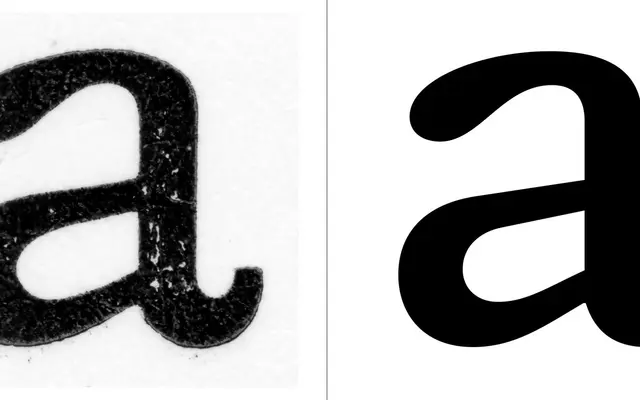
LL Catalogue
Lineto · Nazareno Crea · 2019
LL Catalogue specimen from Lineto
A meticulous digital redrawing of Alexander Phemister's 1858 Old Style Antique No. 7, redrawn by Nazareno Crea from new hot-metal prints of the original matrices.
First traced by M/M (Paris) from an old edition of Gulliver's Travels in 2002 and used for their French Vogue redesign in 2003, the typeface was subsequently redrawn from scratch after research into Phemister's original 1858 Miller & Richard design. Crea worked from prints taken off newly moulded hot-metal type, preserving the upright verticals, near-clunky serifs and particular imperfections of the Victorian original while making optical corrections in the transition to pixels. A 2025 overhaul expanded the character set, refined spacing and kerning, and introduced a variable font version.
Derived from Alexander Phemister's 1858 Old Style Antique No. 7 for Miller & Richard, with the robust upright verticals and near-clunky serifs characteristic of Victorian jobbing types that became the prototype for the Bookman genre.